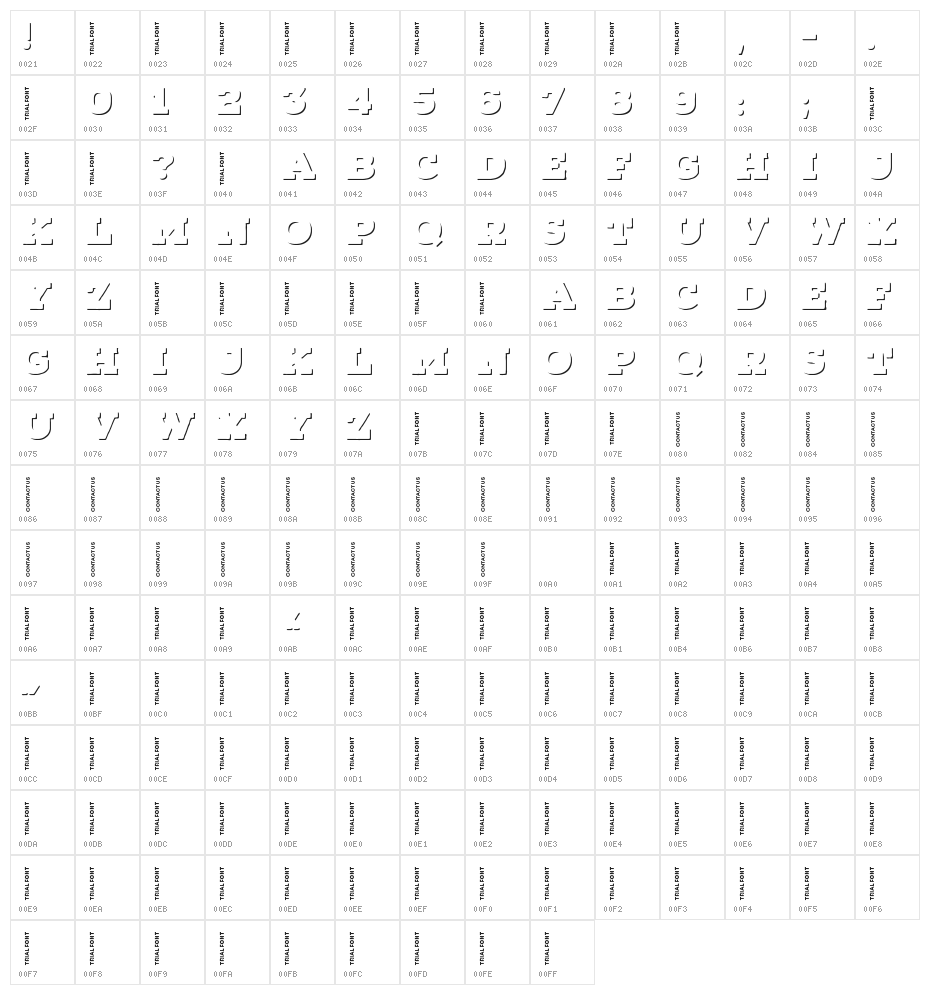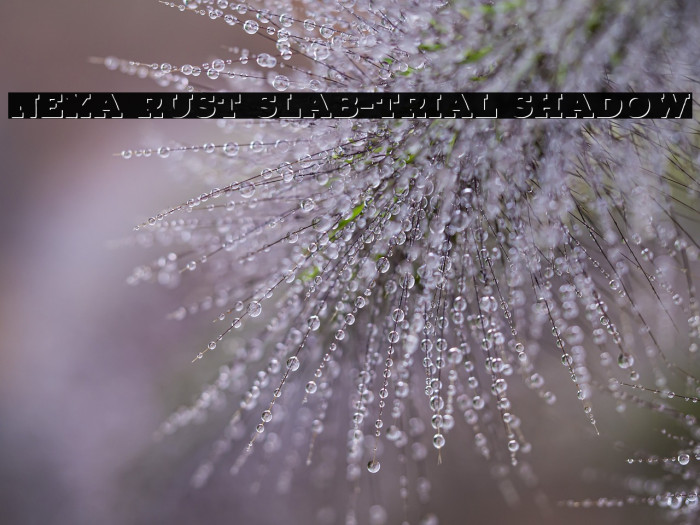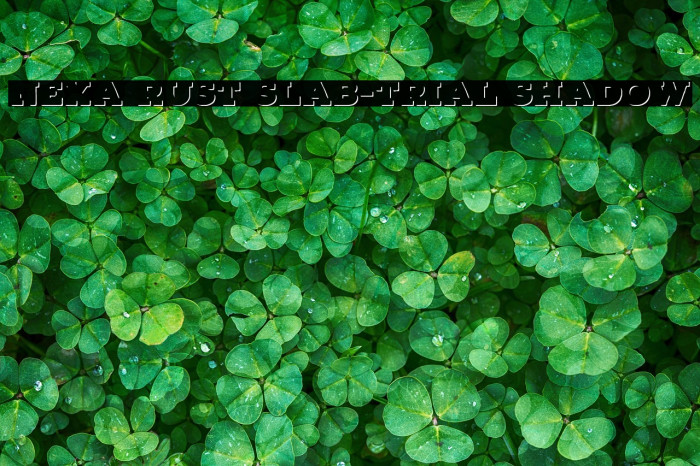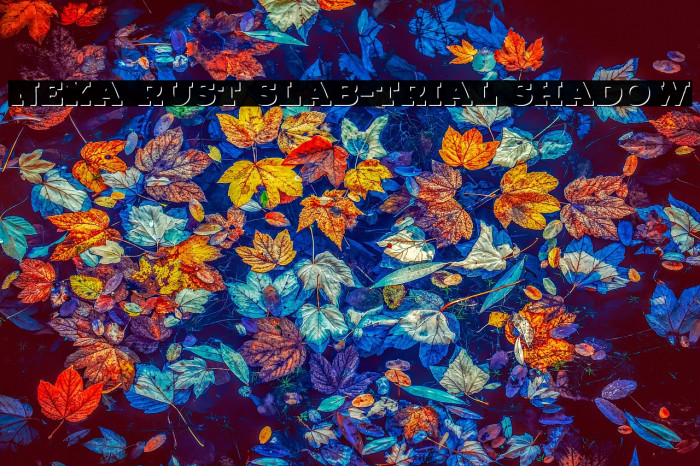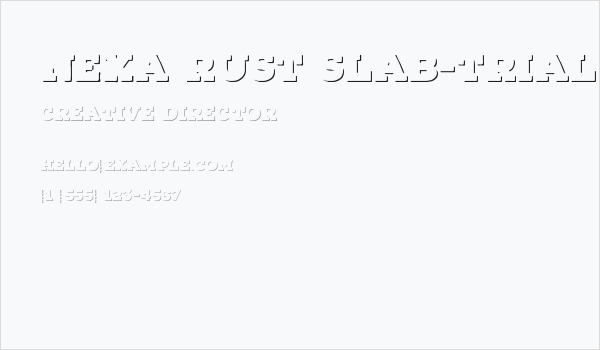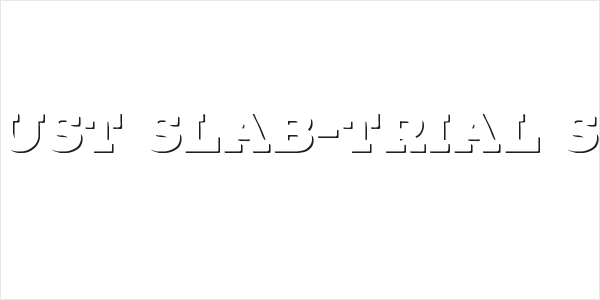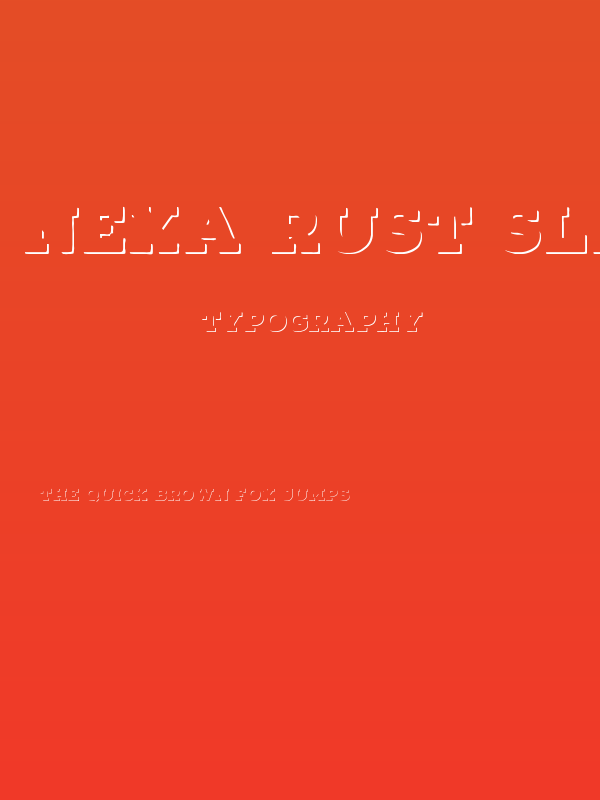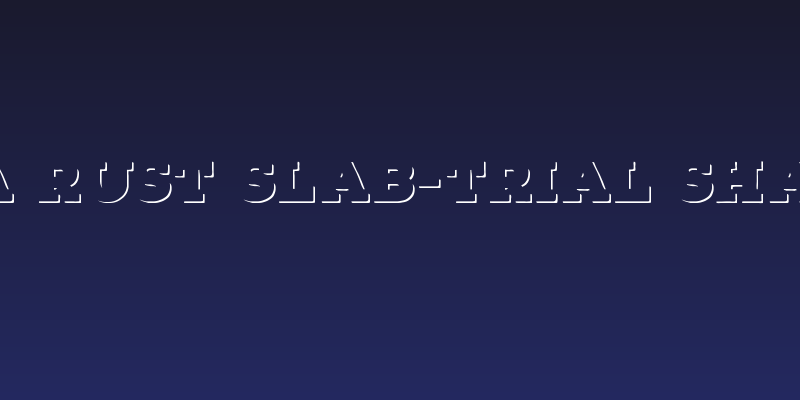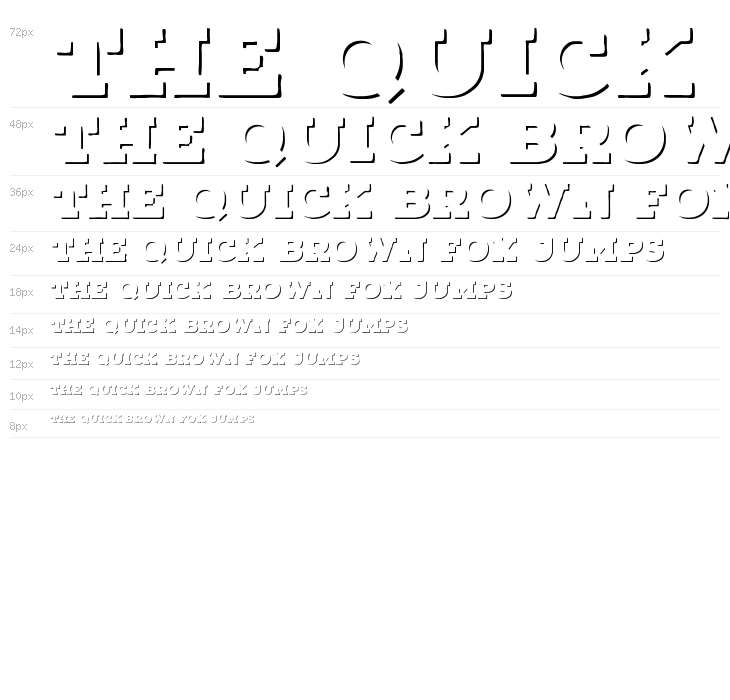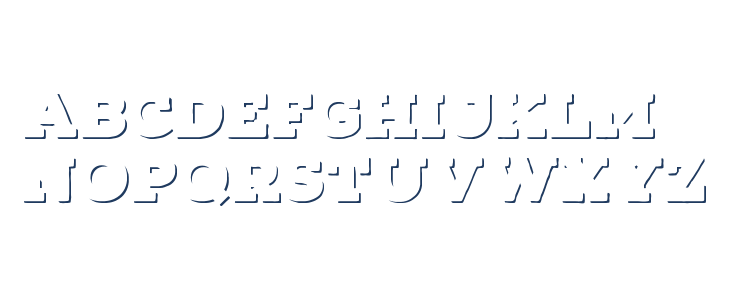
Nexa Rust Slab-Trial Shadow Font
Nexa Rust Slab-Trial Shadow Description
This font features a bold, slab serif style with a distinct shadow effect that adds depth and dimension to the characters. The uppercase and lowercase letters are robust and sturdy, with thick strokes and angular serifs that give a strong, impactful appearance. The numbers and special characters maintain this boldness, ensuring consistency across all glyphs. The shadow effect creates a three-dimensional look, making the text stand out prominently. This font is ideal for creating eye-catching headlines or titles that require a strong visual presence.
| Proposed Projects | Ideal for posters, headlines, branding materials, and any design requiring a strong, impactful typeface. |